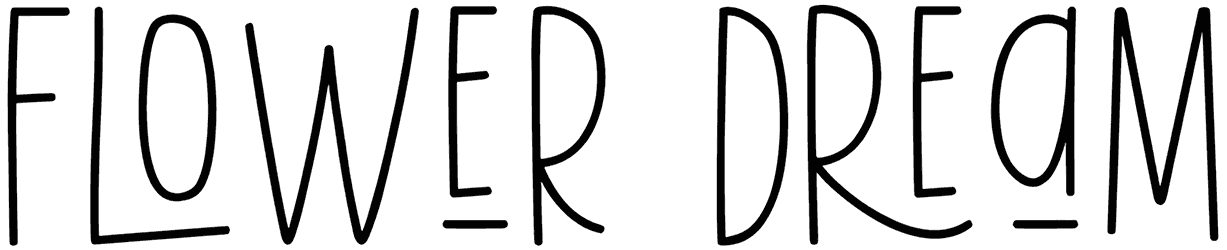
Flower Dream Font
Would you like to display your upcoming modern layout with a cute and delicate face? This farmhouse font, with its minimal and eye-catching vibe, is able to do this for you. Even if there is no offer for lowercase, but still Flower Dream with two weights would be a qualified choice to show off your words of projects, namely posters, apparel, planners, covers, and the like.